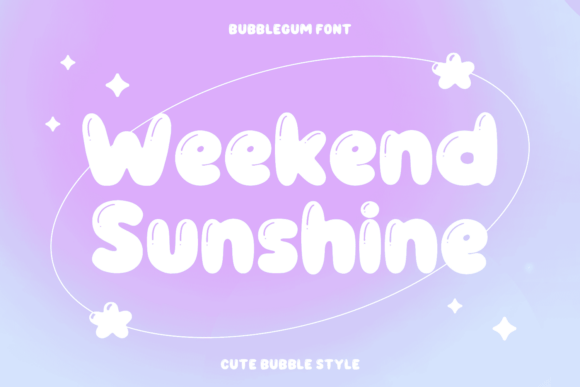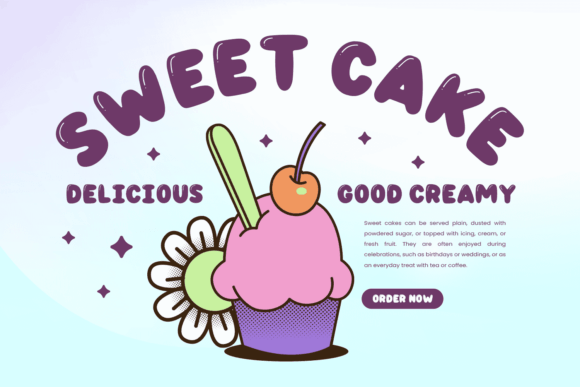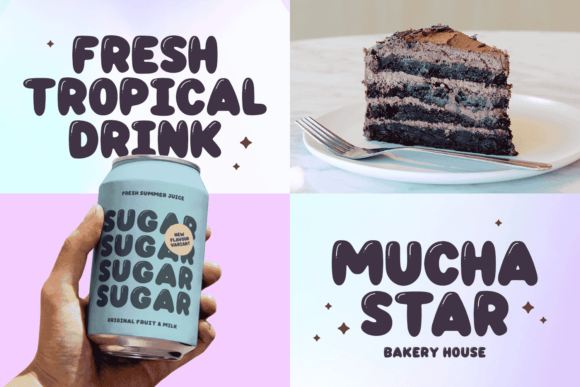
Bubblegum Font
Introducing Bubblegum, a fun and cute display font that adds a playful touch to every design! Perfectly crafted with bubbly, rounded letters, this font is ideal for creating a joyful atmosphere that will bring smiles to all ages. Whether you’re working on invitations, baby showers, or kids’ projects, Bubblegum is here to make your text pop with charm and sweetness.